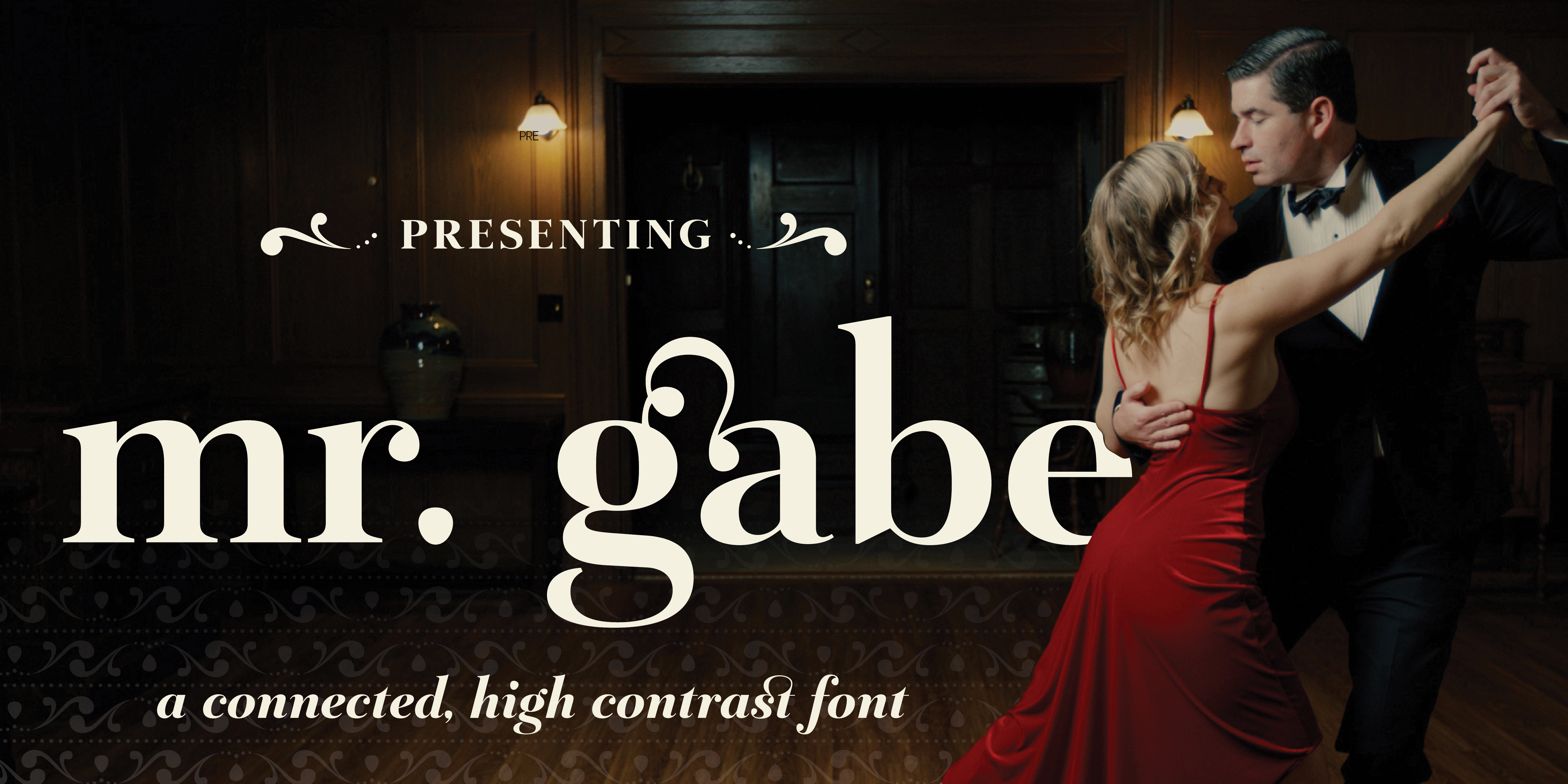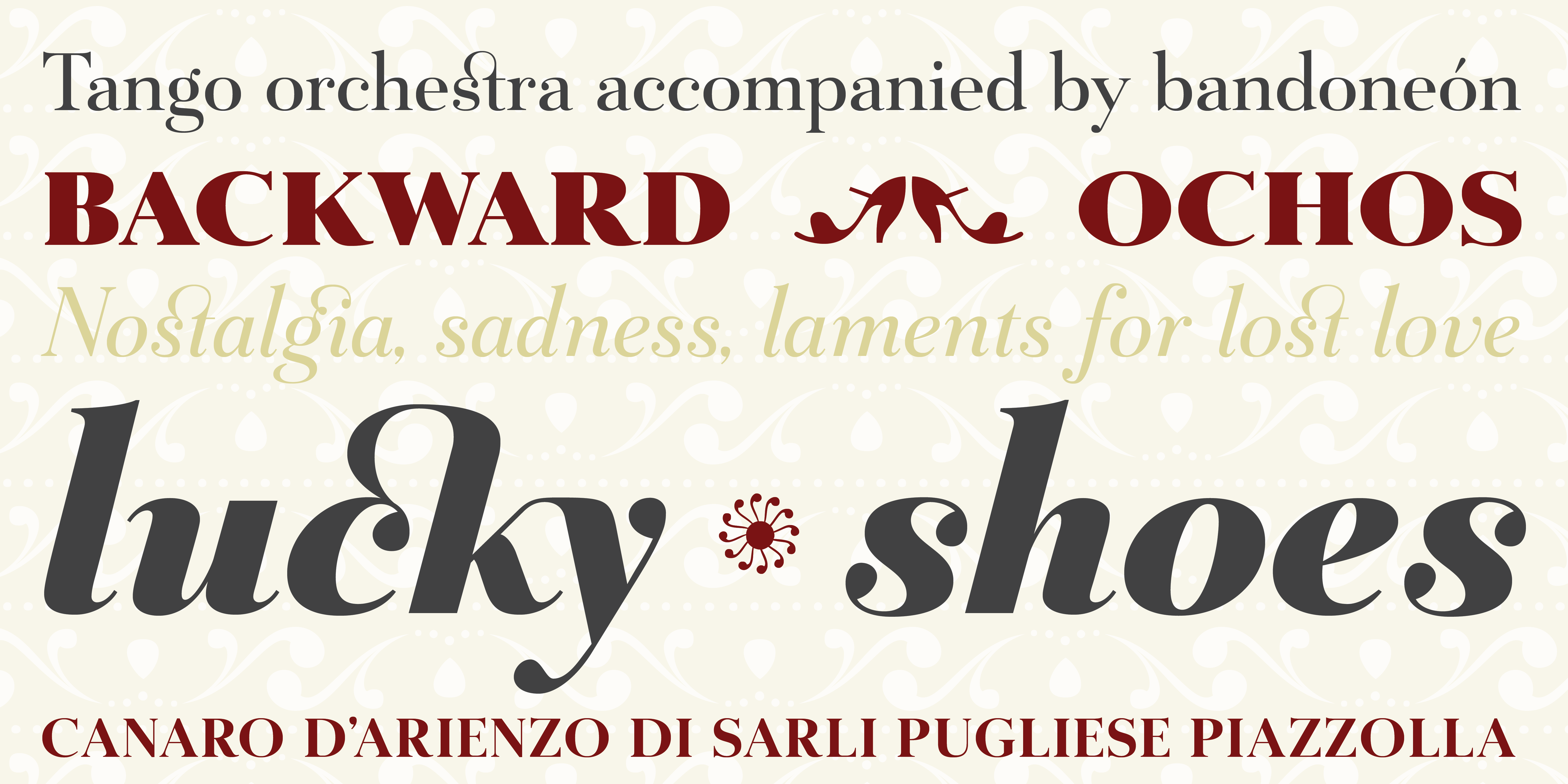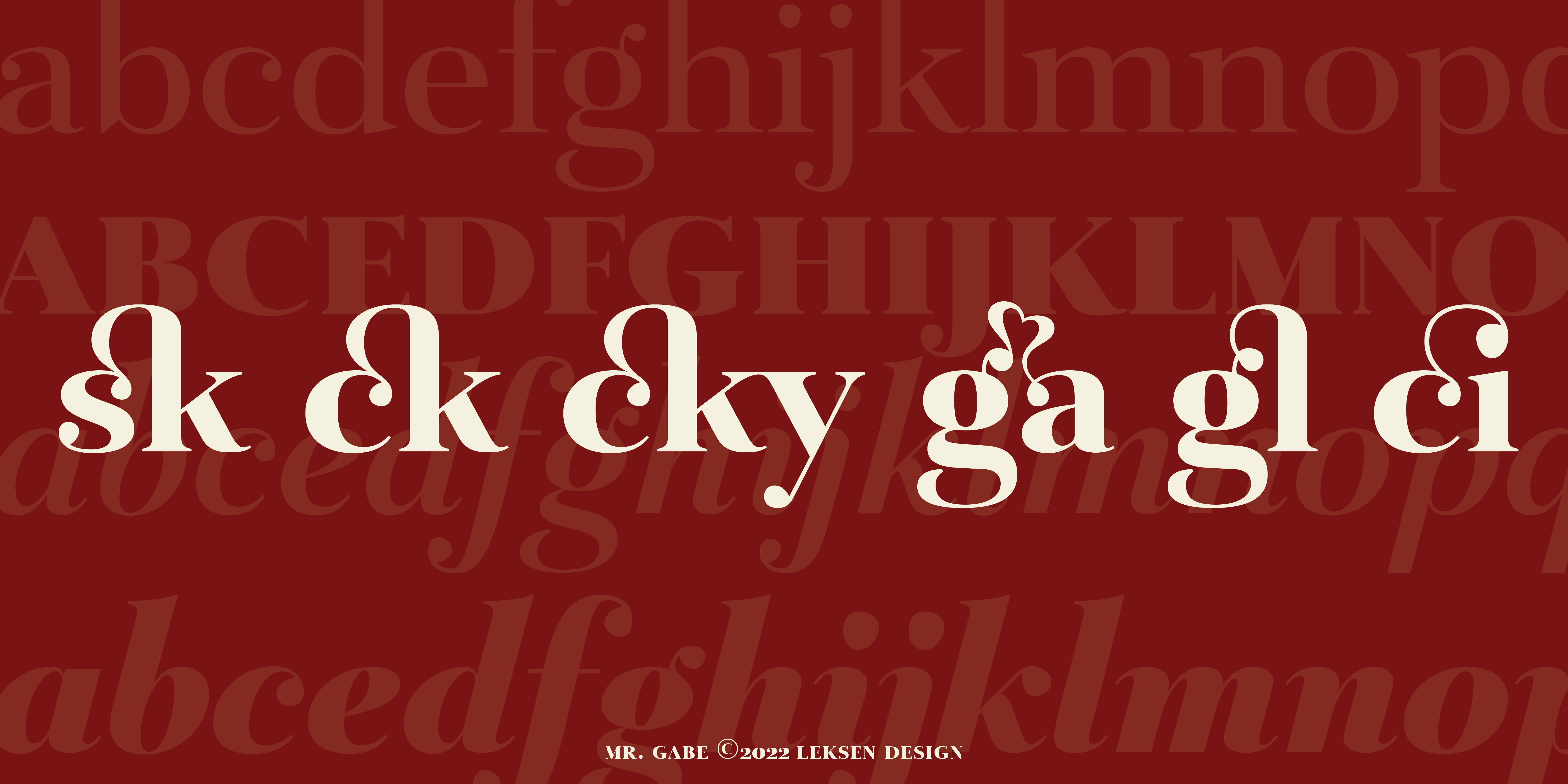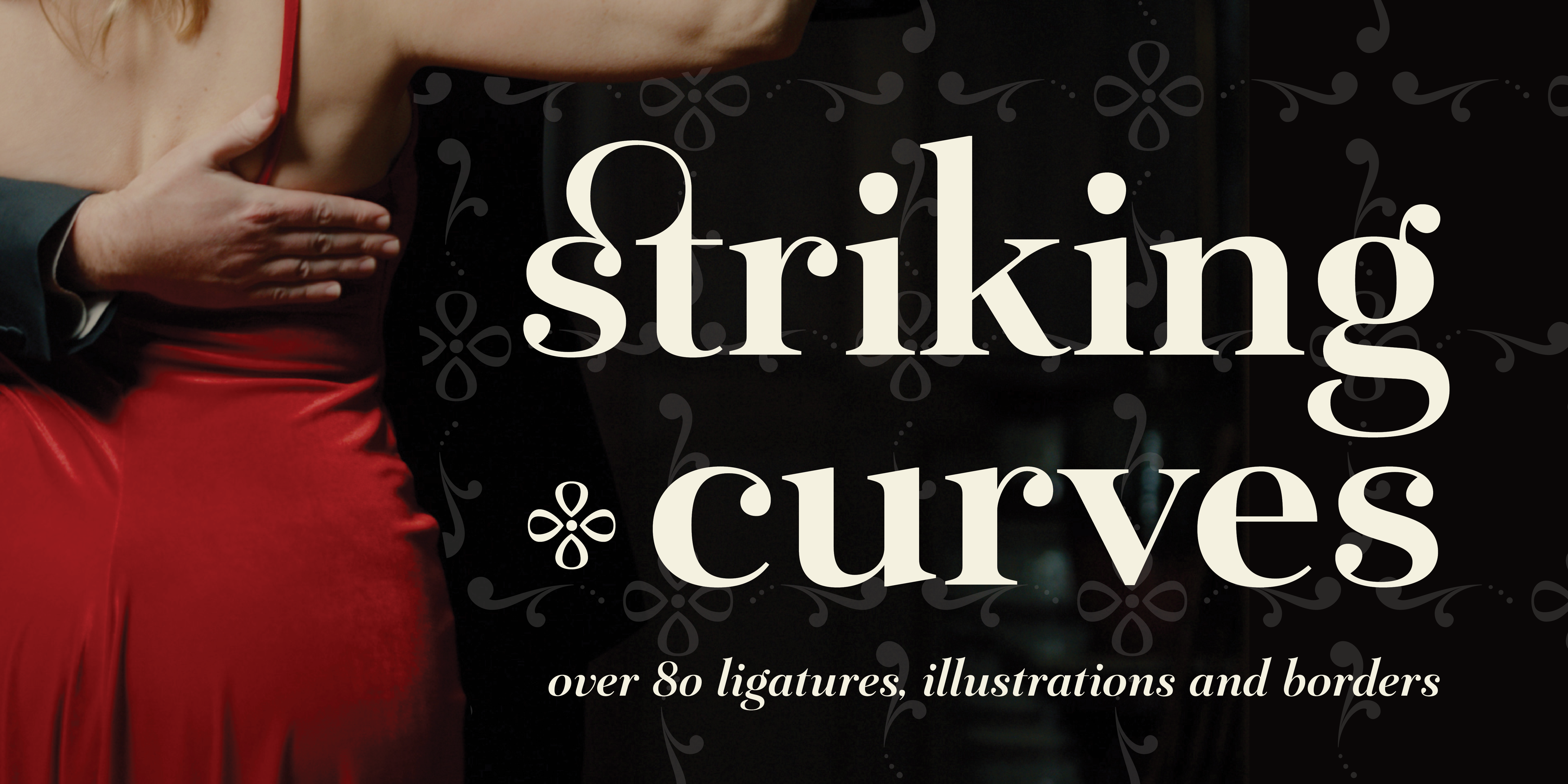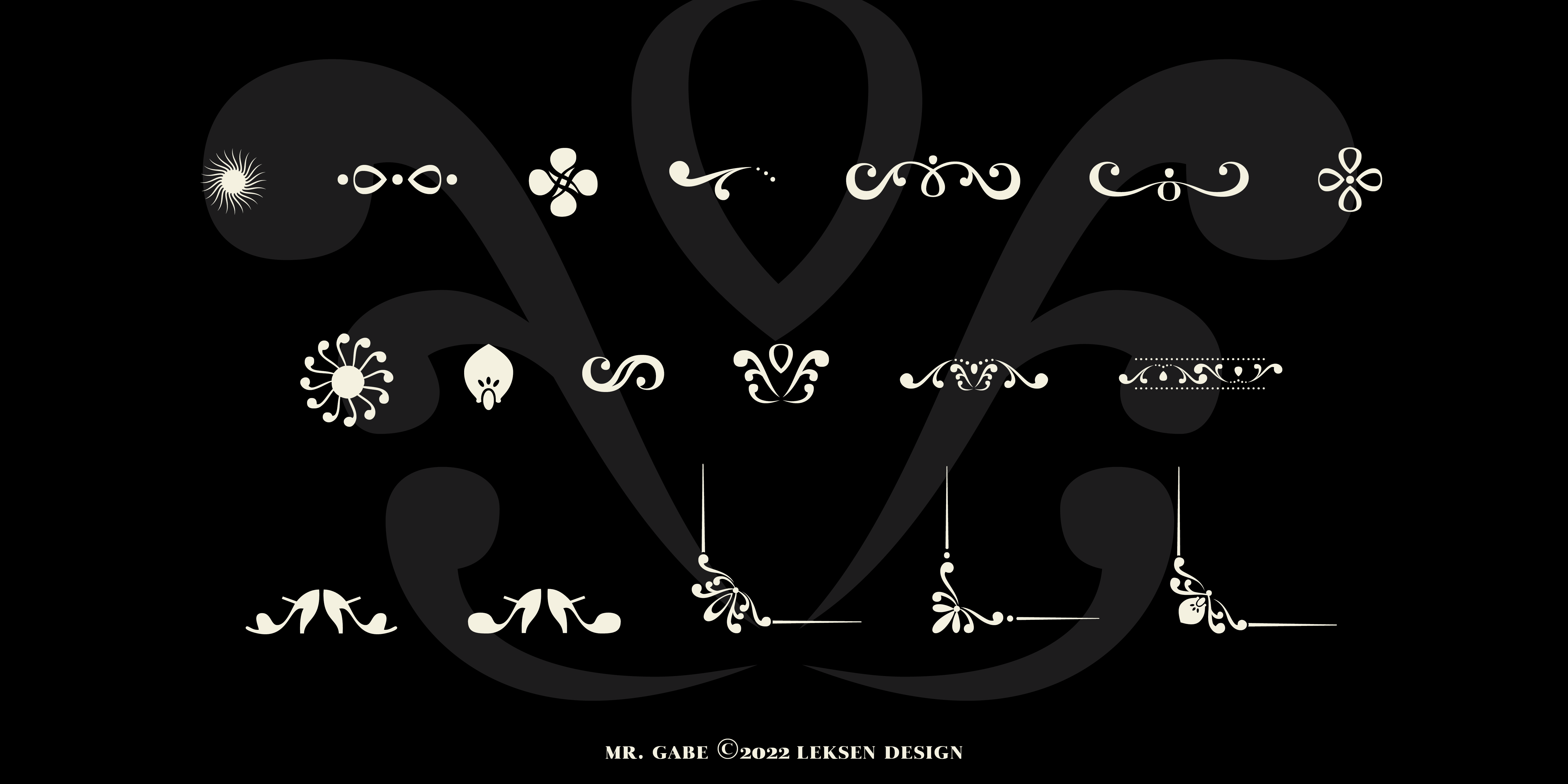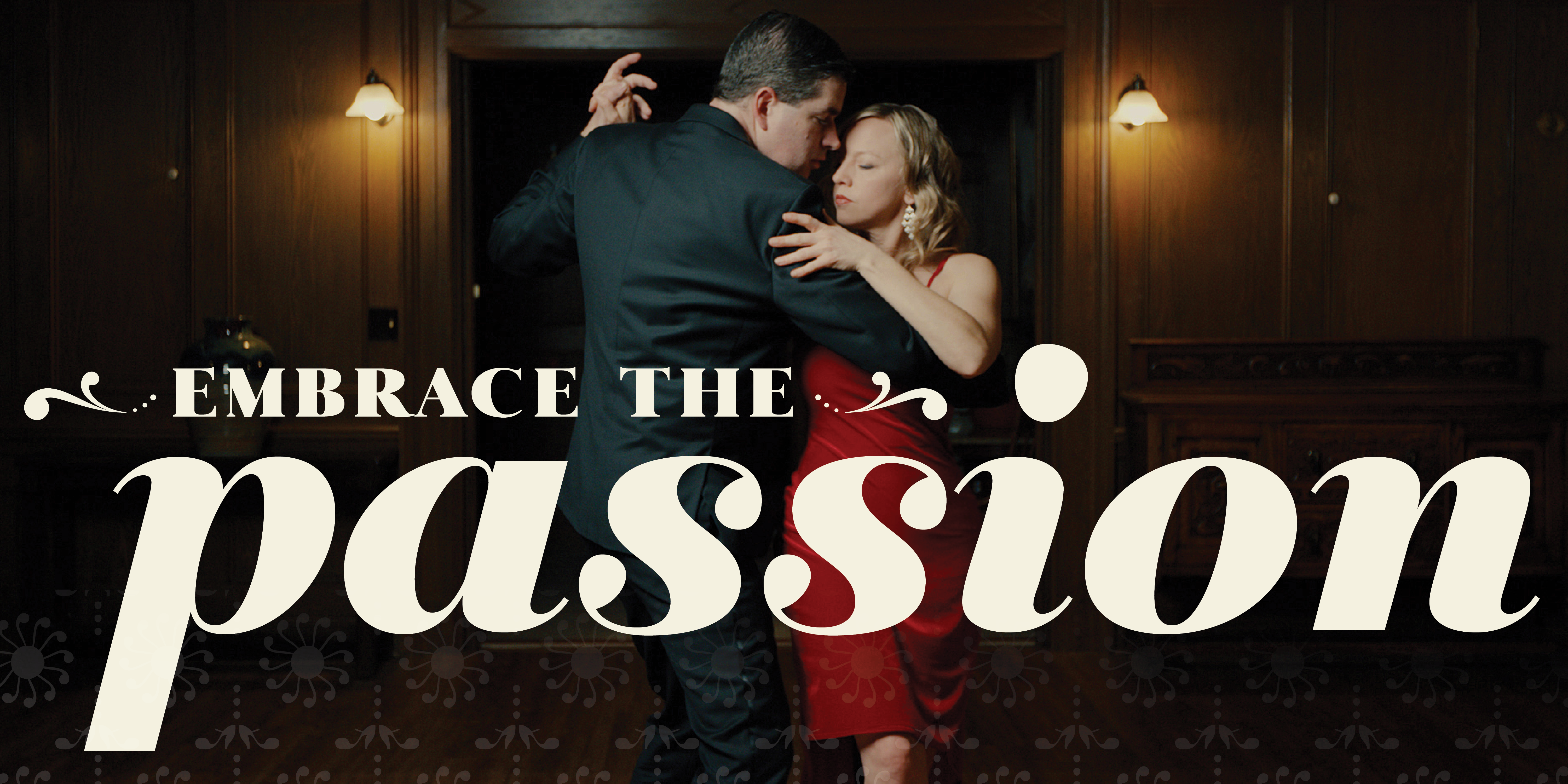
Mr Gabe
Mr Gabe is a typeface designed to dance. The letters include a selection of exuberant flourishes that can be used to kick up a ruckus or make a sweeping gesture. Mr Gabe is a high-contrast serif typeface with vertical stress, a “modern” face in traditional type terms. Even in the regular weight, the contrast between thick and thin strokes is very obvious. Many of the lowercase letters contain ball terminals, teardrop shapes that make Mr Gabe seem decorated even when most of its letter forms are conservative. If you need more bells and whistles, you can explore the font’s collection of ornaments and decorative borders. Check out Mr Gabe in motion: https://www.youtube.com/watch?v=VduATZVbbMQ